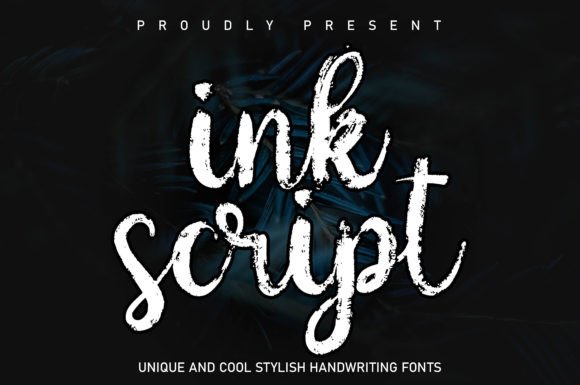
Dive into the world of elegance and grace with Ink Script Font, a creation crafted with meticulous precision to bring forth a typographic masterpiece. This script font isn't just a collection of letters; it's an artistic expression that breathes life into your designs. Every curve, every stroke, every space between the letters has been carefully considered to deliver a font that captivates and enchants.
Ink Script isn't just another font; it's a gateway to a world of creative possibilities. Its flowing lines and elegant loops add a touch of sophistication to wedding invitations, making them cherished heirlooms. Picture your loved ones' faces as they receive an invitation adorned with Ink Script, a testament to the love and care you've poured into their special day.
Unleash your creativity with Ink Script and elevate your t-shirt designs to new heights. Let your imagination run wild as you transform ordinary tees into wearable works of art. The font's readability and charm will make your designs stand out, turning heads wherever you go.
Ink Script isn't just for special occasions; it's perfect for building brands that exude class and distinction. Its timeless appeal adds a touch of refinement to logos, business cards, and marketing materials, leaving a lasting impression on your clients. Watch as your brand takes flight, soaring above the competition with the power of Ink Script.
With Ink Script, the possibilities are endless. Whether you're a seasoned designer or just starting out, this font will ignite your imagination and take your projects to breathtaking new heights. Embrace the beauty of calligraphy and elevate your designs to the realm of the extraordinary.
Don't settle for ordinary fonts. Choose Ink Script and embark on a journey of creativity and limitless expression. Let your designs flow with the grace of a handwritten script, capturing the essence of timeless elegance.